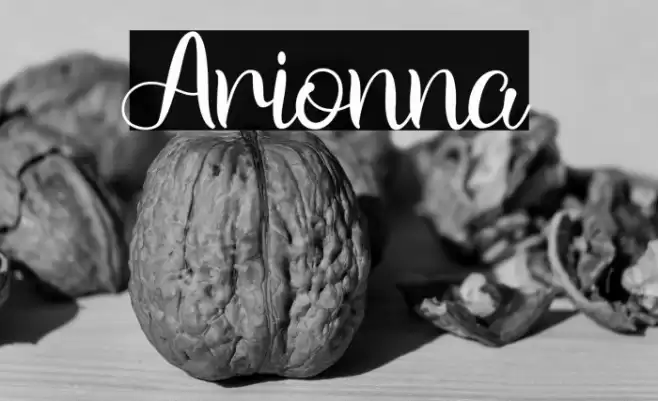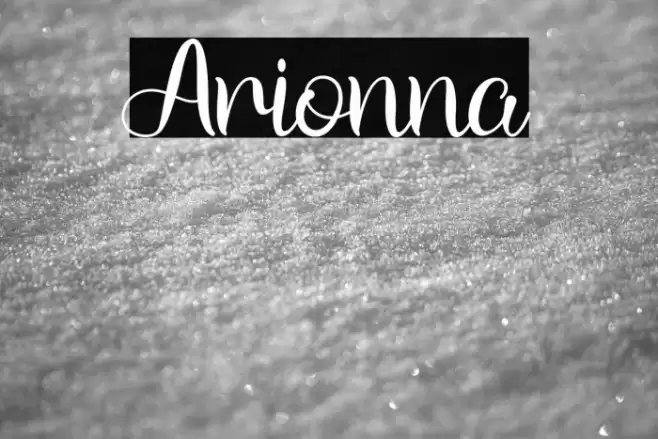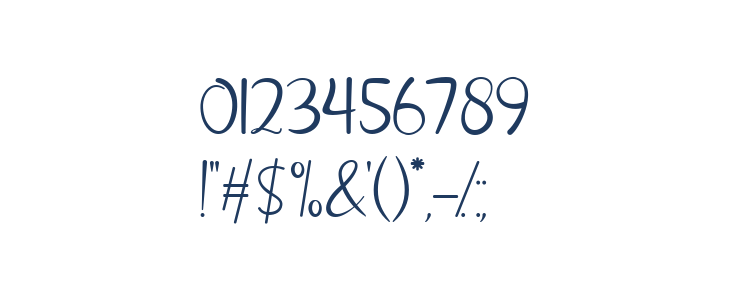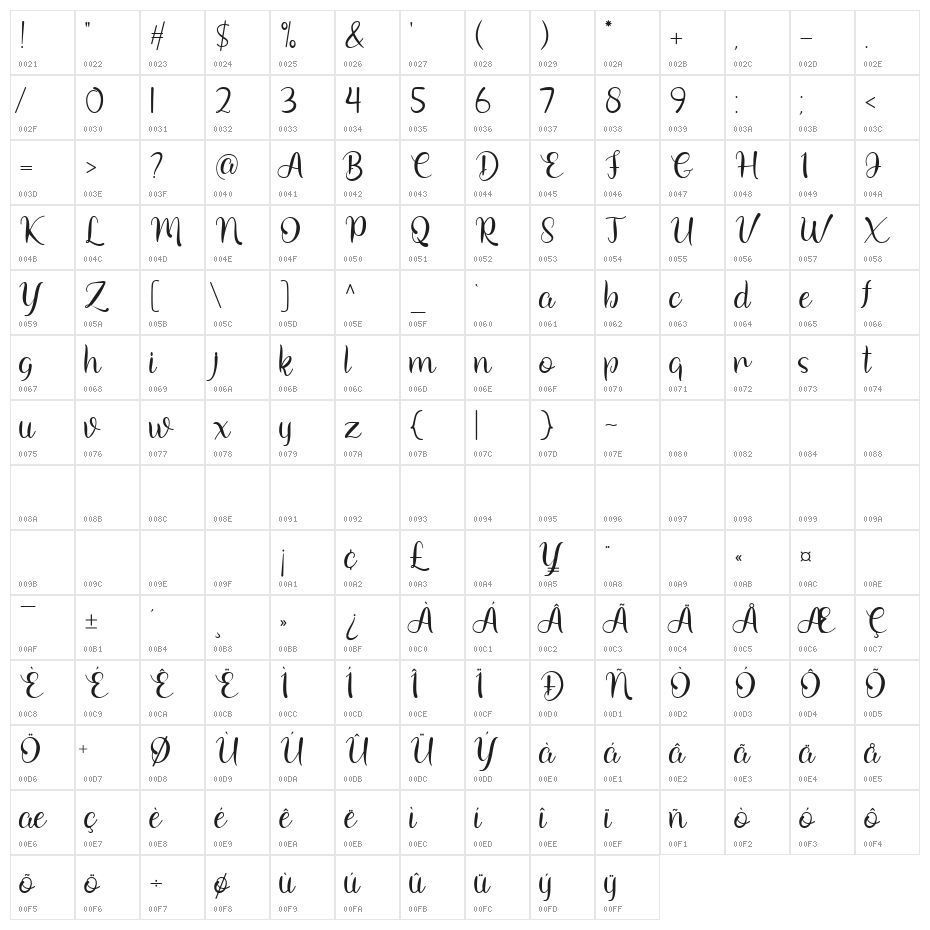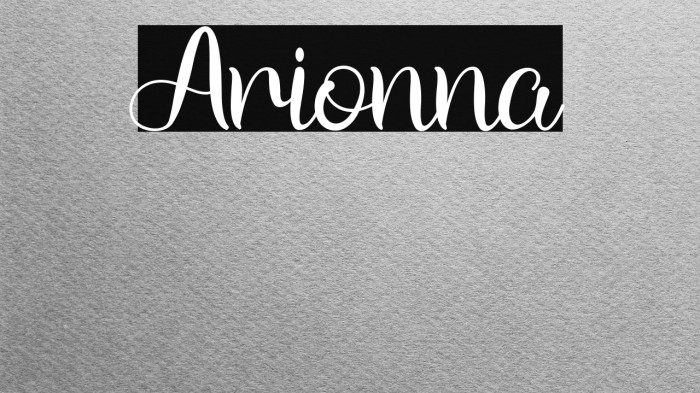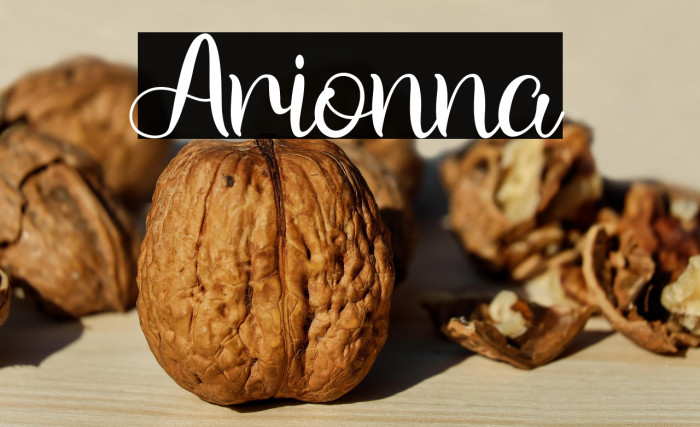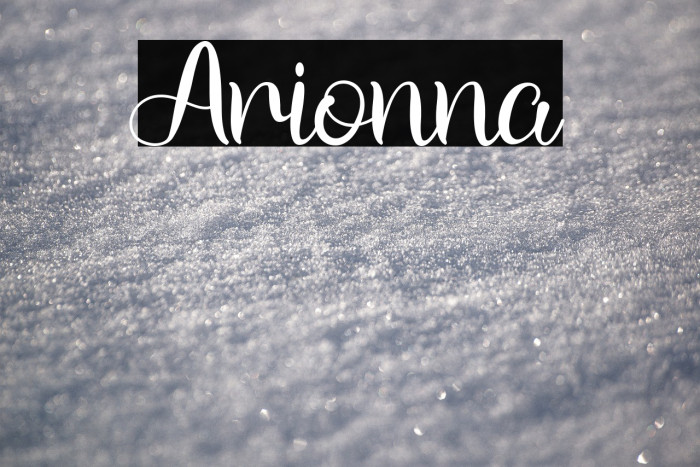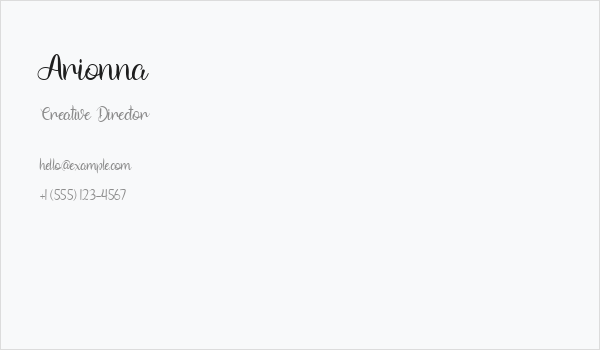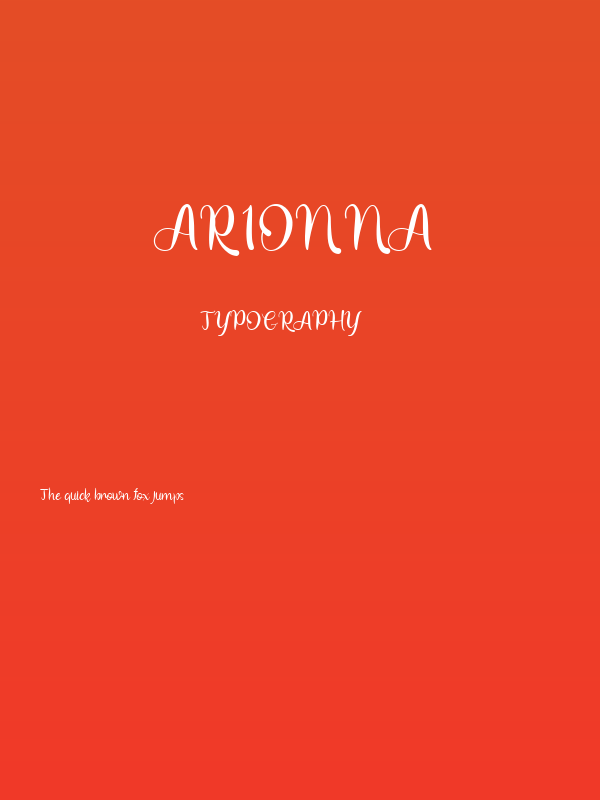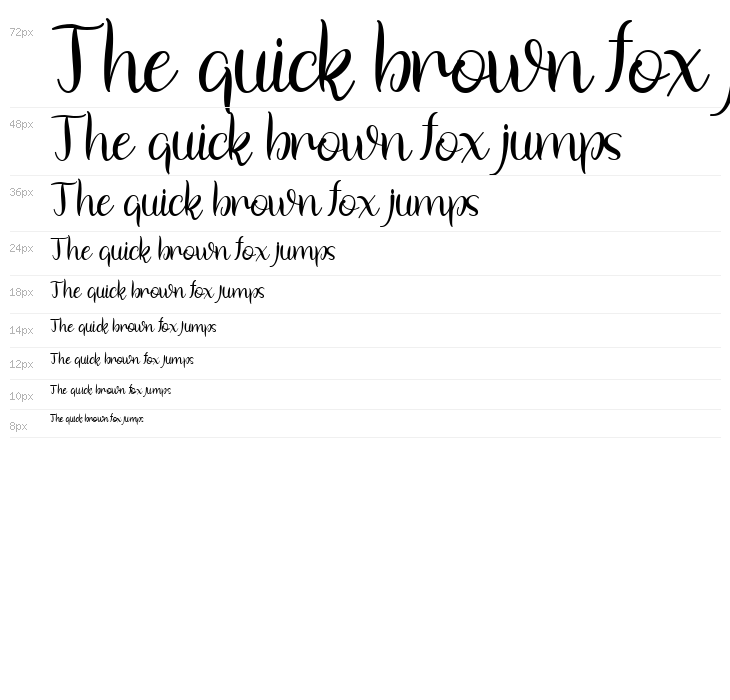
Arionna Font
Arionna Description
This font features a lively and elegant script style with a modern twist. The characters are fluid and connected, showcasing a handwritten aesthetic that is both sophisticated and approachable. The uppercase letters are bold and slightly elongated, giving them a commanding presence, while the lowercase letters maintain a consistent flow with gentle curves and loops. The numbers are clear and legible, matching the overall style of the alphabet. Special characters are thoughtfully designed to complement the script, adding versatility for various design needs.
A modern, elegant script font with a handwritten aesthetic from Uncategorized fonts.
- Proposed Projects: Ideal for wedding invitations, greeting cards, branding, and social media graphics.
- Use Case: Logos, Headlines, Invitations